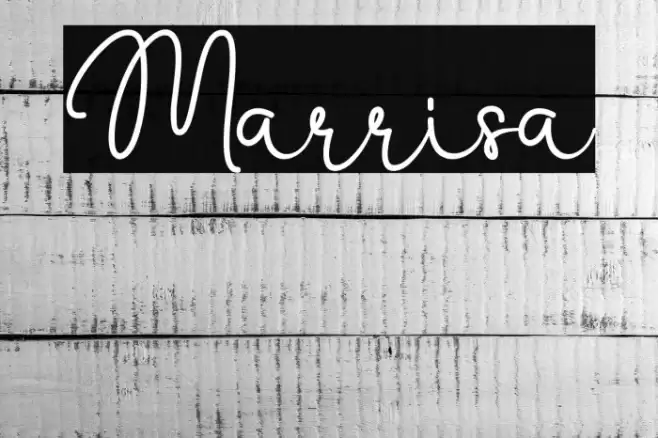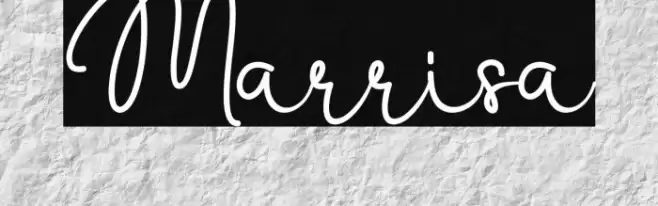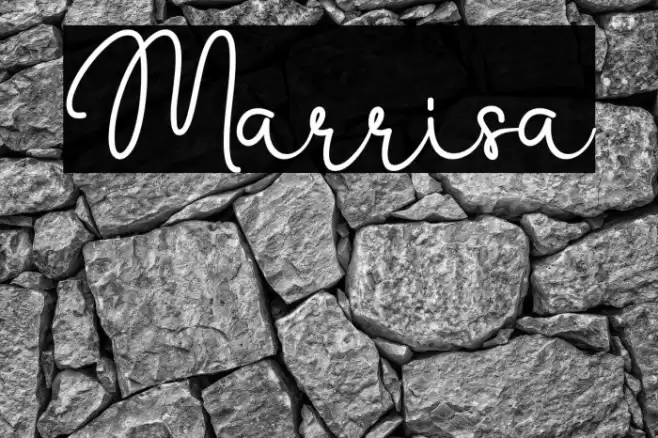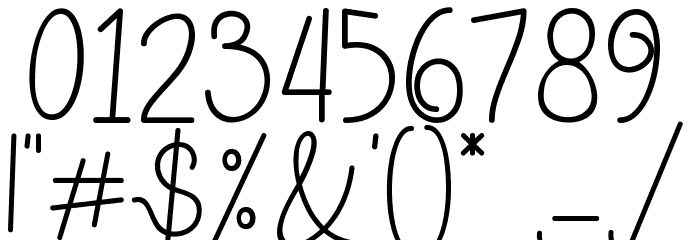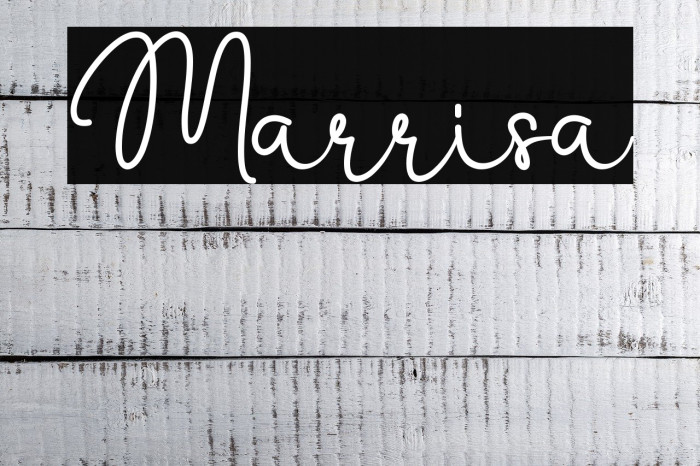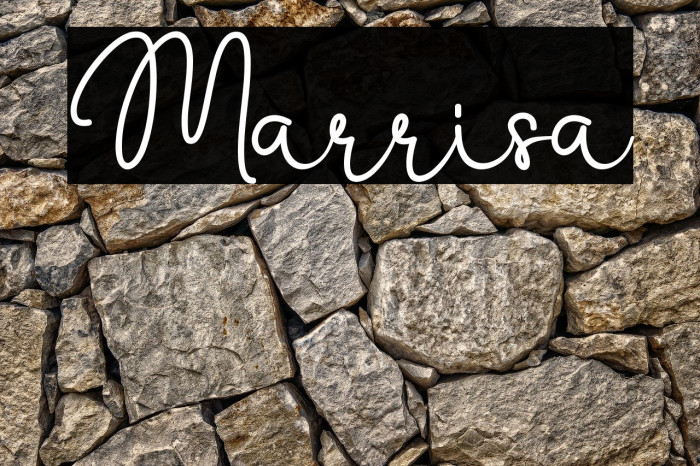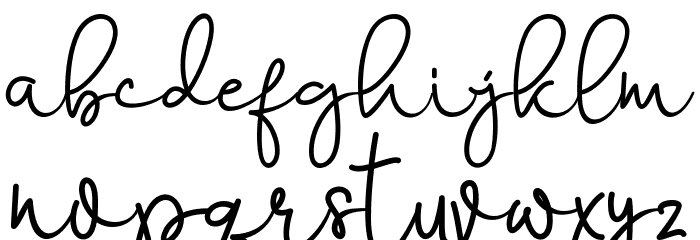
Marrisa Font
Marrisa Description
This font features a playful and elegant handwritten style, characterized by its flowing and connected script. The uppercase letters exhibit a graceful, looping design, while the lowercase letters maintain a consistent, smooth flow. The numerals and special characters complement the overall aesthetic with their rounded and whimsical appearance. This font's charm lies in its ability to convey a sense of warmth and personality, making it ideal for projects that require a personal touch.
A playful and elegant handwritten script font with flowing, connected letters from Uncategorized fonts.
- Proposed Projects: Ideal for wedding invitations, greeting cards, personal branding, and creative projects that require a personal touch.
- Use Case: Logos, Invitations, Greeting Cards